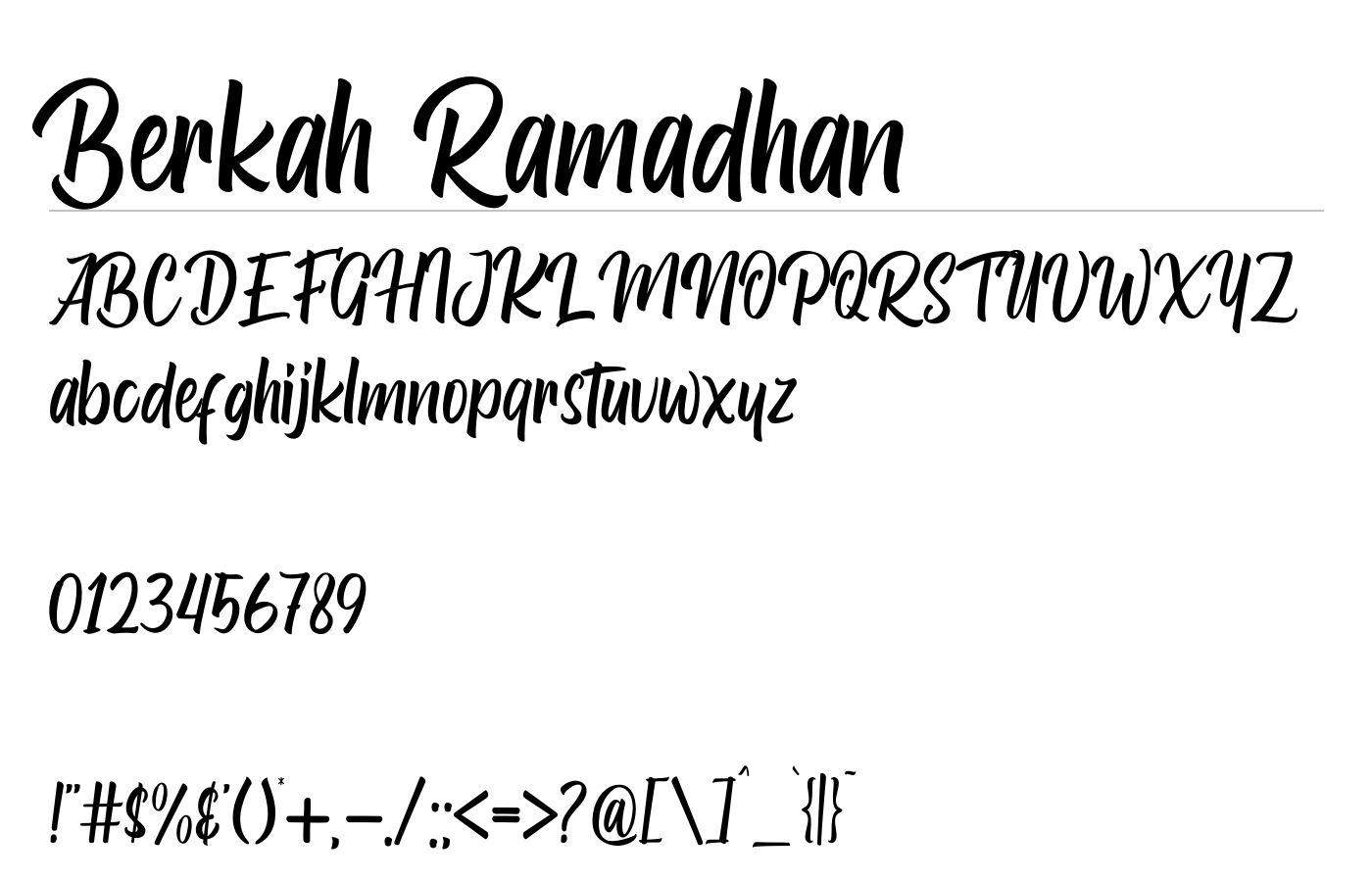
Berkah Ramadhan is a lively script font with a casual and friendly feel, featuring smooth, flowing strokes that mimic natural handwriting. Its medium weight and moderate contrast give it good readability, while the playful, slightly slanted letterforms make it perfect for warm, personal branding, festive invitations, and creative headlines. This font works well in designs that seek an approachable and cheerful touch, especially those related to cultural or celebratory themes.
Berkah Ramadhan Font
About Berkah Ramadhan Font